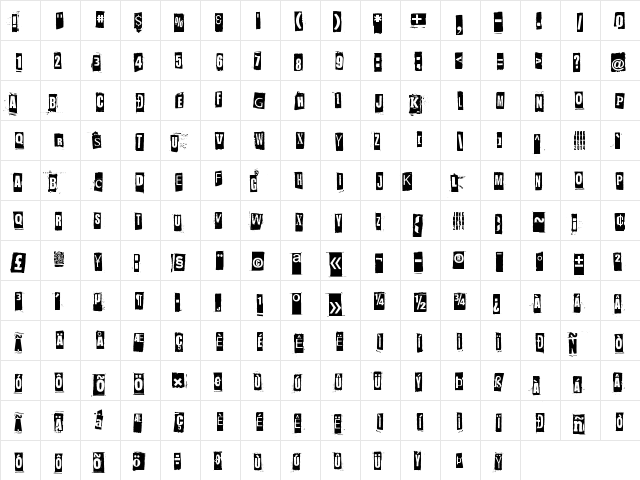
Jockey Full Of Bourbon Regular Font Preview
Jockey Full Of Bourbon Regular
Jockey Full Of Bourbon Regular Font Details
| Designer | junkohanhero |
Design Context for Jockey Full Of Bourbon Typeface
Jockey Full Of Bourbon is a composed and adaptable typeface that performs quietly and consistently across a wide range of design contexts.